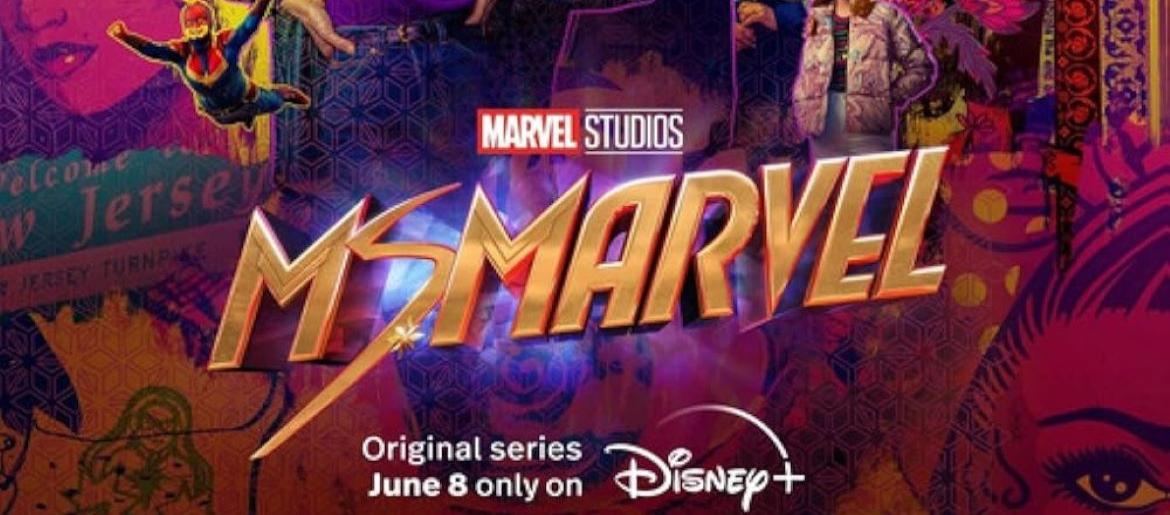
Ms Marvel Font
What Font is Ms Marvel?
The Ms Marvel Font perfectly reflects the bold, heroic spirit of the Marvel superhero. Based on the Miss Marvel font, which is free for personal use, it features strong, dynamic lettering that captures energy, action, and fun. This font is ideal for fan projects, posters, social media graphics, and other creative designs inspired by the comic series or show. Its clean, impactful style makes it versatile for a variety of designs while staying true to the character’s iconic identity.
About Ms Marvel
Ms Marvel is a popular superhero from Marvel Comics, first appearing in 2013. The character, Kamala Khan, is a teenage superhero of Pakistani-American heritage who discovers her shape-shifting abilities and embraces her role as a hero. Known for her courage, humor, and relatable struggles, Ms Marvel has become a fan-favorite character in both comics and the Disney+ series adaptation. The font and visual identity associated with Ms Marvel convey her youthful energy, bold personality, and heroic adventures. Its playful yet strong design mirrors Kamala’s optimism, determination, and unique style, making the font perfect for projects celebrating the beloved character.